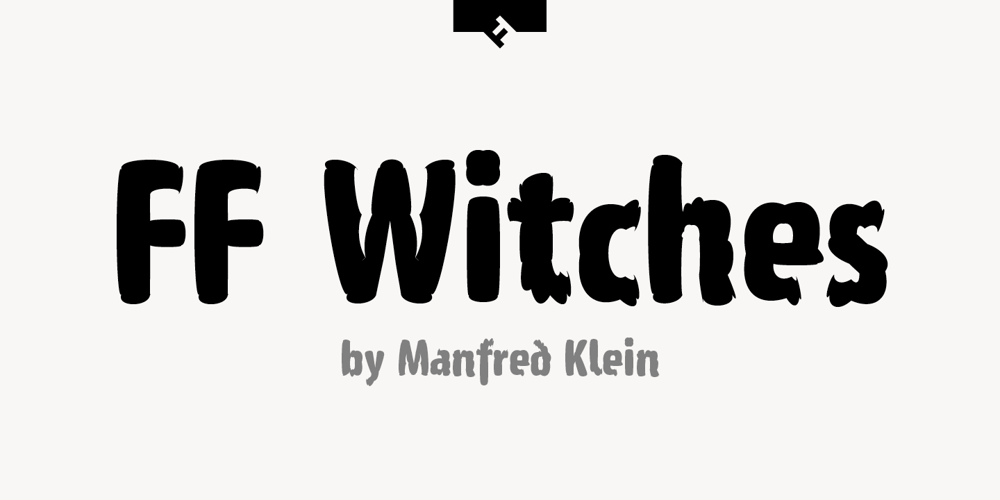
FF Witches Font Family was designed by Manfred Klein and published by FontFont. FF Witches contains 1 styles and family package options. German type designer Manfred Klein created this display FontFont in 1994. The font is ideally suited for advertising and packaging and film and tv. FF Witches provides advanced typographical support with features such as ligatures, alternate characters, case-sensitive forms, and stylistic alternates. It comes with proportional lining figures.